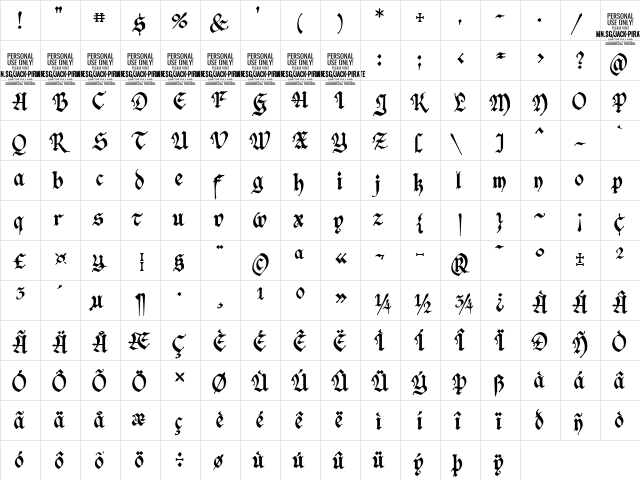
Jack Pirate PERSONAL USE ONLY Regular
| Foundry | Mans Greback AB |
| Designer | Mans Greback |
Design Context for Jack Pirate PERSONAL USE ONLY Typeface
Jack Pirate PERSONAL USE ONLY is a composed and adaptable typeface that performs quietly and consistently across a wide range of design contexts.